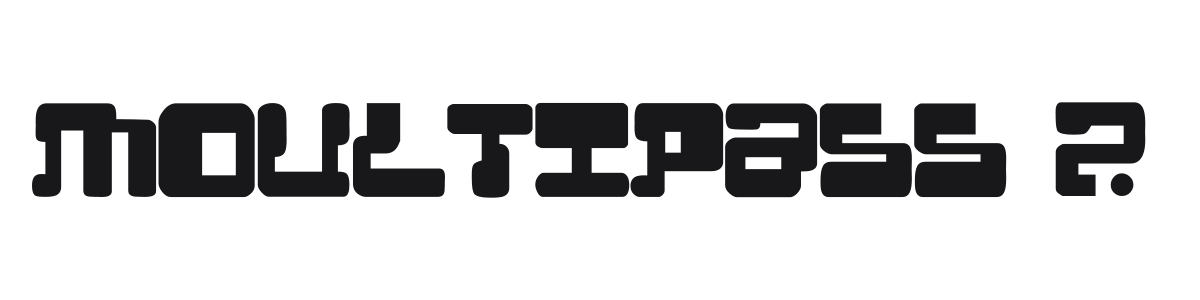
Moultipass 2
by ChaosFonts
Moultipass 2 is a heavy, blocky display face from ChaosFonts with thick geometric letterforms that feel like they were designed for a spacecraft hull. The squared-off construction and dense proportions lean firmly into sci-fi territory, with just enough personality in the details to keep it from feeling purely mechanical. Best at large sizes for headlines, posters, and title screens where you want something futuristic that carries serious visual weight.